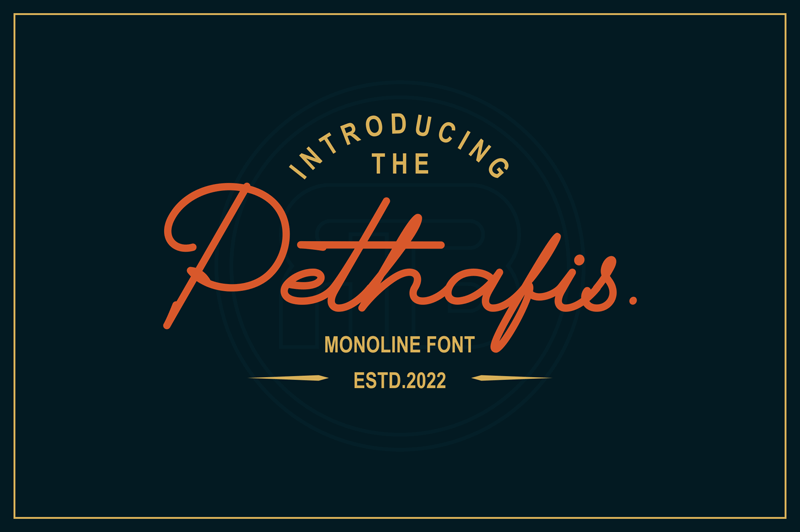
Preview and download Pethafis Font. Created by RGB Studio in Script Handwritten styles with Free for personal use license.
Font name: | Pethafis |
Author: | RGB Studio |
Introducing Pethafis, a bold & festive monoline script font that's suitable for branding, product packaging, social media quotes and graphics, holiday cards and more. This demo font is for PERSONAL USE ONLY! But any donation are very appreciated. Paypal account for donation : https://PayPal.Me/payrgbstudio Link to purchase full version and commercial license : https://crmrkt.com/wj6EwM For Extended License or Corporate License Please Reach Us on email : rgbstudio71@gmail.com if you need something! Happy Designing! Thank you. Regards, RGB Studio |